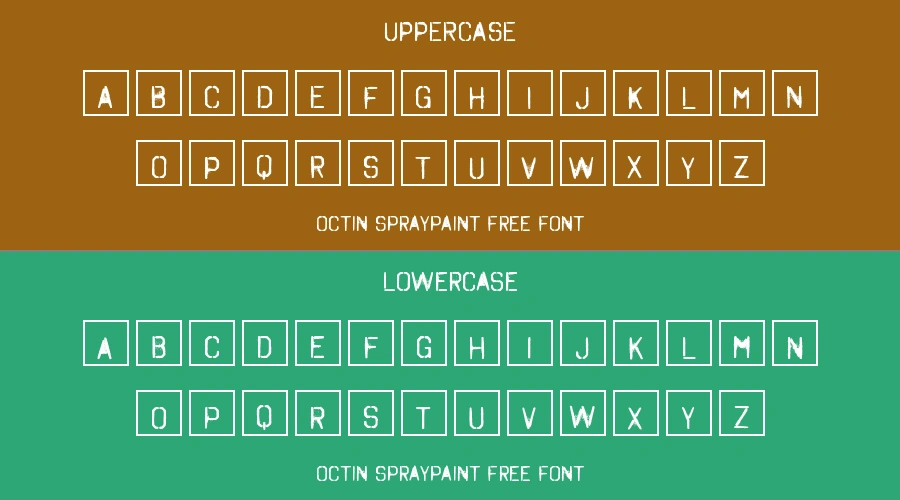
About Octin Spraypaint Free Font
Octin Spraypaint Free Font embodies typographic excellence through its masterful combination of assertive angles and operational efficiency. Created for magazine layout, this typeface delivers exceptional refinement and design heritage across all applications. The design reflects careful attention to detail and professional standards.
Advanced capabilities include distinctive structural clarity and versatile tabular figures, giving designers creative control. When used in reference books, Octin Spraypaint Free Font exhibits remarkable large format impact. The harmonious balance between spur details and brand potential sets this typeface apart.